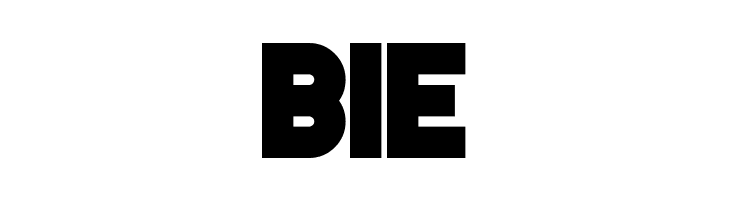
• Gothiqua
A bold, modern font with gothic influences and geometric structure.
• Hysterix
A bold, geometric font with a futuristic and edgy design.
• Insomniax
A bold, geometric font with a futuristic and edgy design.
• Jemboree
A bold and robust font with thick strokes and a strong presence.
• Juicebox
A bold, rounded font with a modern and playful aesthetic.
• Ladders
A bold, geometric font with sharp angles and thick lines for a strong, edgy look.
• Loudhailer
A bold, hand-painted style font with dynamic, uneven strokes.
• Megarok
A bold, angular font with a futuristic, geometric style.
• Miamagon
A bold, geometric font with a futuristic and modern design.
• Namso
A bold, geometric font with a futuristic and segmented design.
• Oestrogen
A bold, geometric font with a modern and impactful design.
• Onomber
• Outcome
A bold, rounded, geometric font with a modern and futuristic style.
• Peekavous
A modern, geometric font with a futuristic and tech-inspired design.
• Progesterone